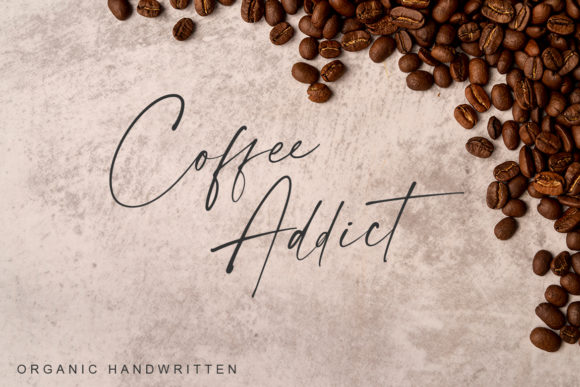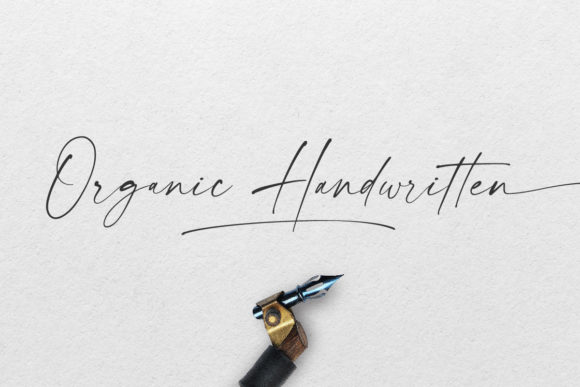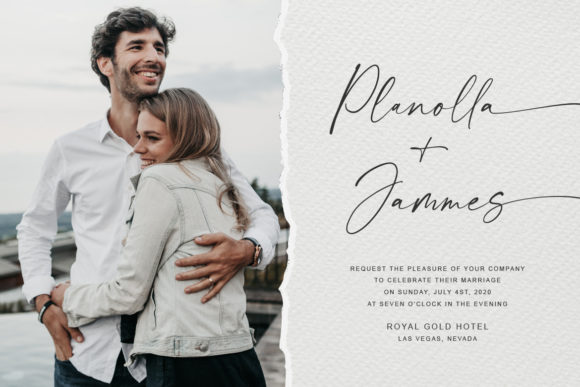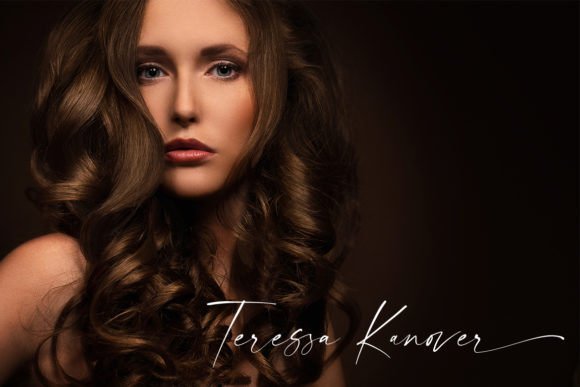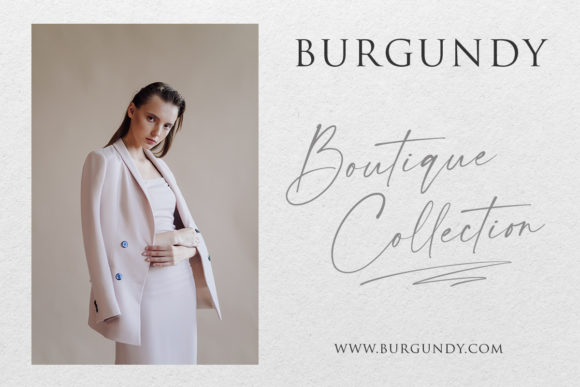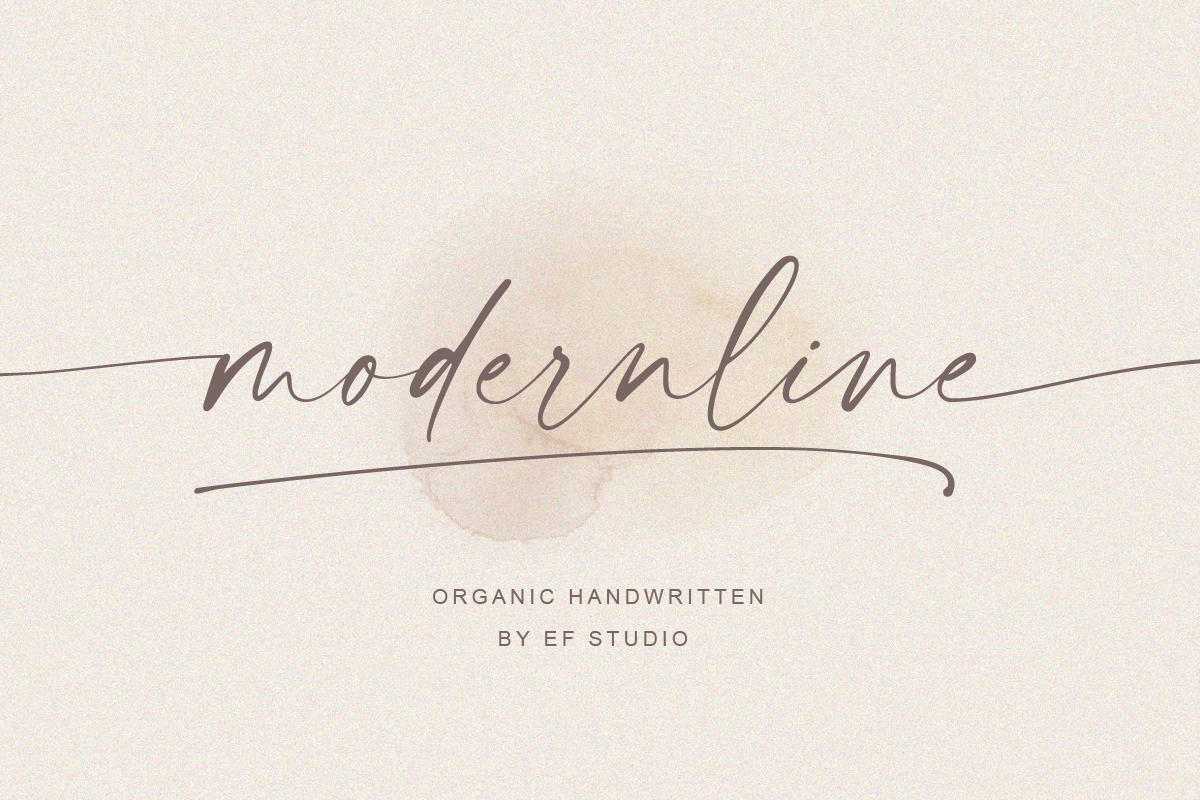
modernline
Searching for a sophisticated font with a touch of elegance? Look no further than a charming handwritten font like Modernline. This sleek and refined typeface is perfect for making a statement in any design context.
With its varying baseline and smooth lines, Modernline exudes a sense of sophistication that's hard to resist. Whether you're creating a bold headline or adding subtle flair to a busy background, this font's gorgeous glyphs and stunning alternates are sure to impress.
As an added bonus, Modernline is PUA encoded, making it easy to access all the glyphs and swashes at your fingertips. This means you can customize your design with precision and ease, adding that extra special touch that sets your work apart from the rest.
If you're looking for a font that's equal parts elegant and approachable, look no further than Modernline. Its unique blend of sophistication and charm makes it a perfect choice for designers seeking to add a touch of refinement to their work.